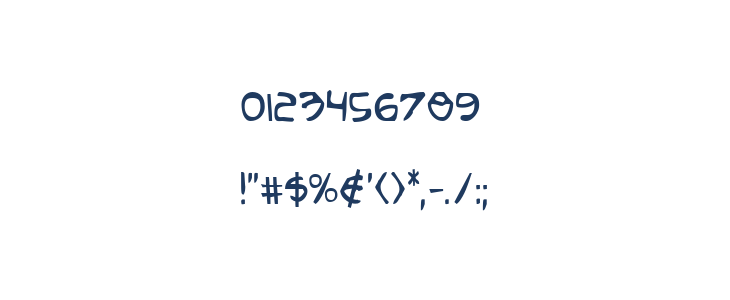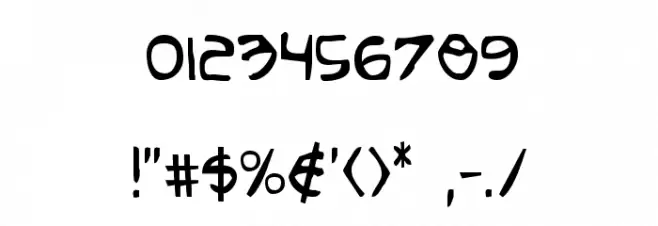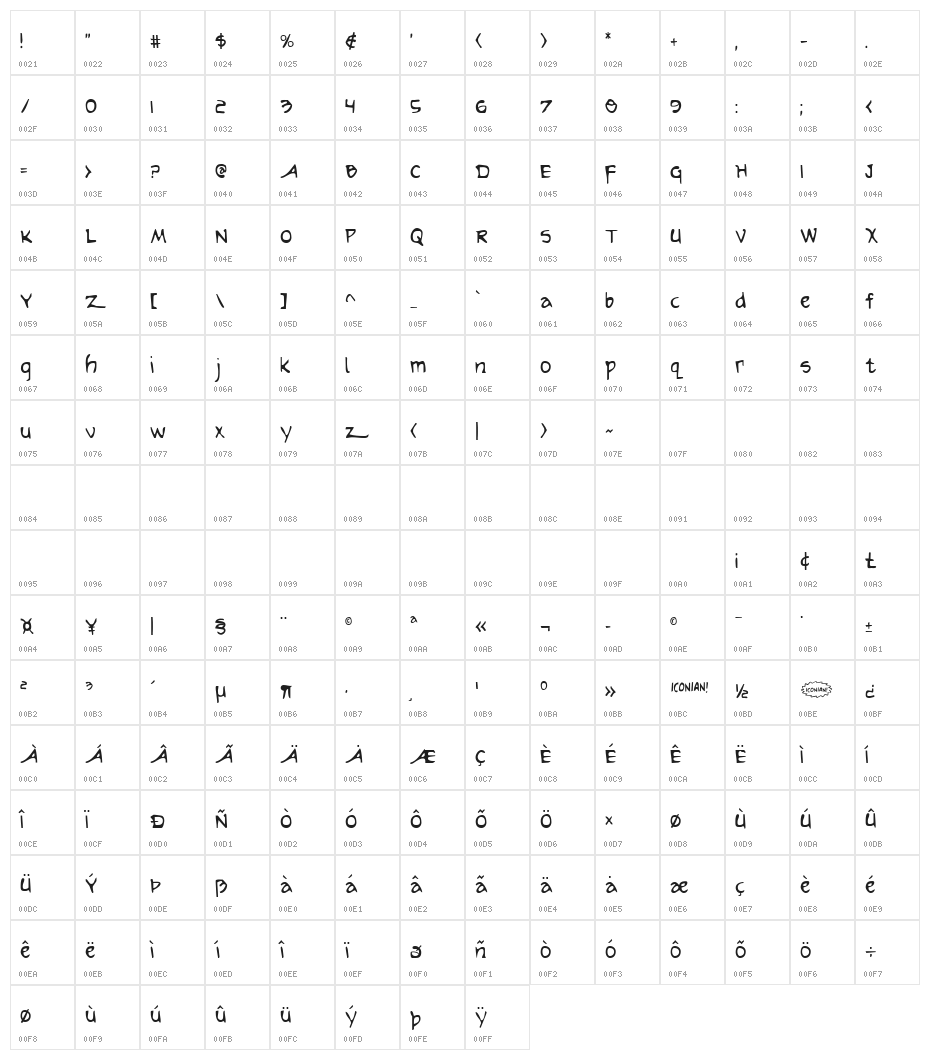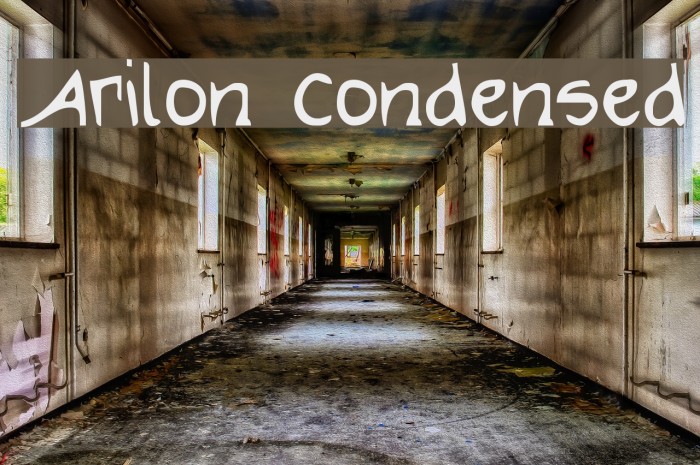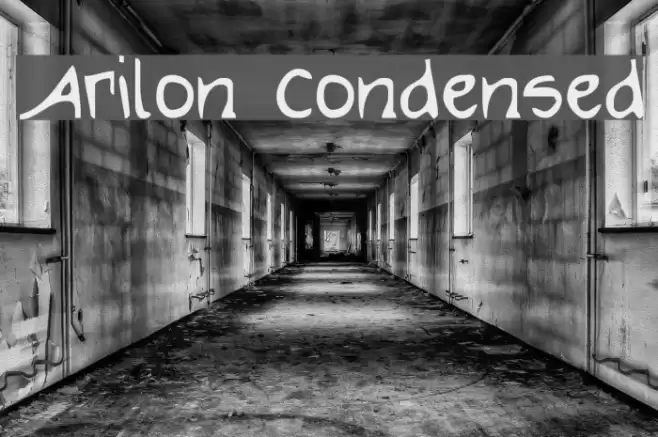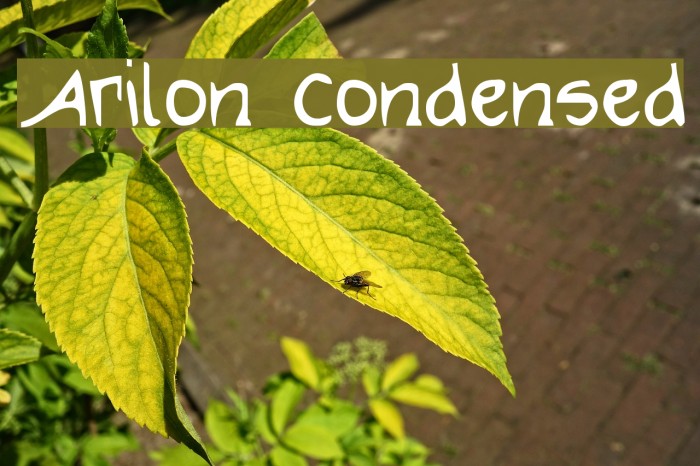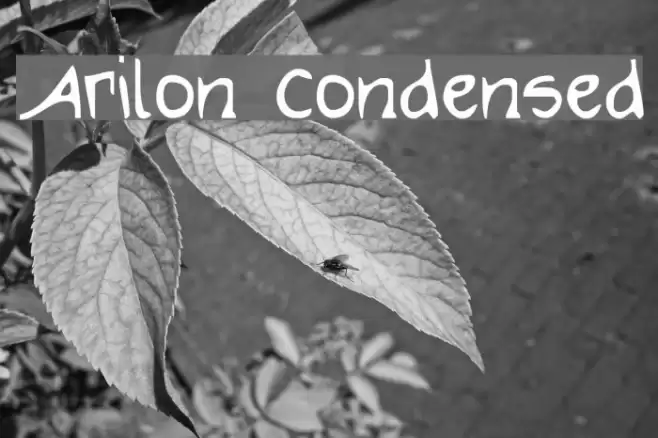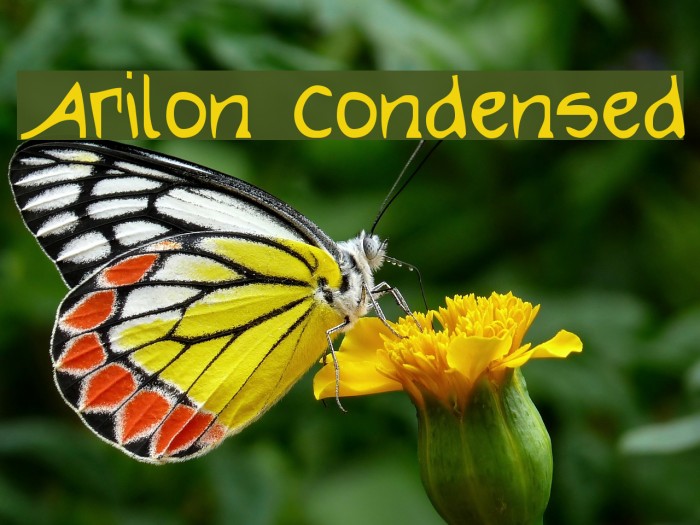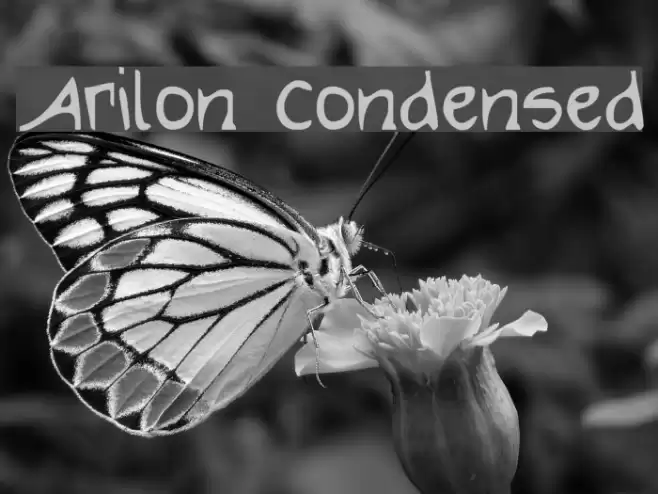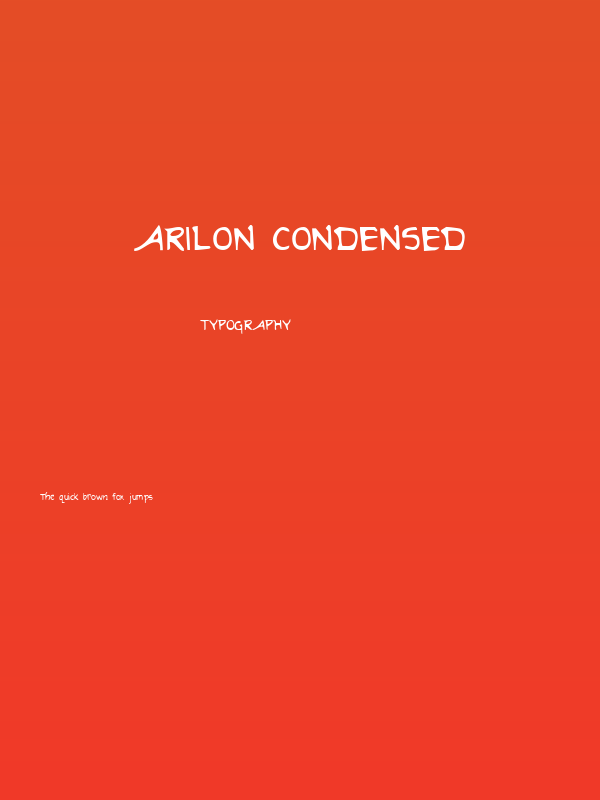
Arilon Condensed Font
Arilon Condensed Description
This font features a playful and artistic design with a hand-drawn aesthetic. The characters exhibit a unique, slightly irregular form that adds a whimsical touch to the text. The strokes are varied in thickness, giving a dynamic and lively appearance. The uppercase letters are bold and prominent, while the lowercase letters maintain a consistent style with a slightly more subdued presence. Numbers and special characters follow the same playful design, making the font versatile for creative projects. The overall style is informal and friendly, suitable for projects that aim to convey a sense of fun and creativity.
| Proposed Projects | Ideal for children's books, creative posters, playful branding, and artistic invitations. |